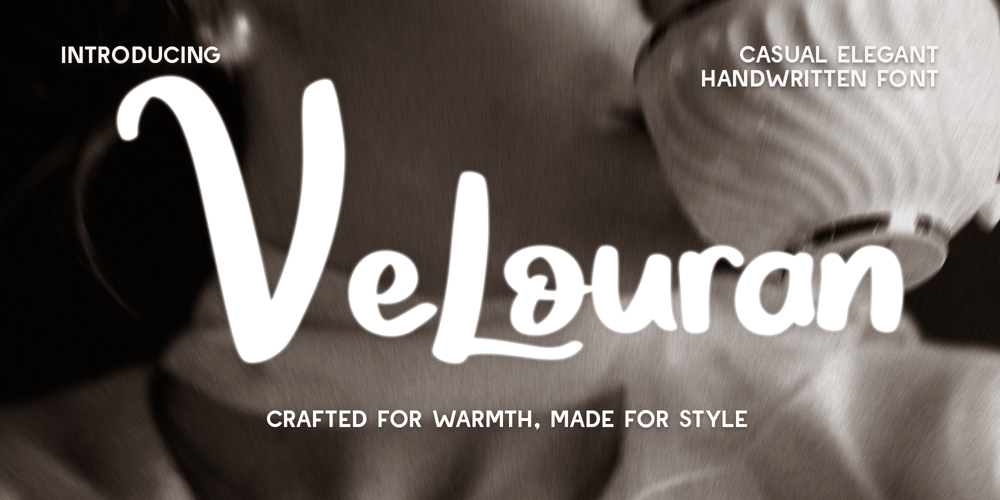
Velouran Font Family was designed by Gilang Mei Nugraha, Frederik Aristaputra and published by Creatifont Studio. Velouran contains 1 styles and family package options. Velouran is a beautifully crafted handwritten font that combines casual elegance with dynamic, graceful strokes. Each letter flows naturally, with smooth curves and delicate lines that bring a warm, inviting feel to the text. The slightly varied, organic shapes give it a personal touch, while its refined structure maintains readability and style. Velouran is perfect for projects that aim to feel both stylish and heartfelt, from branding and social media to wedding invitations and heartfelt quotes. With its effortless blend of beauty and charm, Velouran is designed to make every word feel special and genuine.A SUMMARY OF WHAT’S INCLUDED: Standard Character A-Z, a-z, 0-9, Punctuation & symbols Regular Elegant Style Multilingual Support Works on PC & Mac Simple installation Accessible in Adobe Creative Suite (Ai, Ps, Id, etc.) even work on Microsoft Word. PUA Encoded Characters – Fully accessible without additional design software. 🌟If you come across any issues or notice anything we might have overlooked while using this product, please feel free to reach out to us. We greatly value your feedback as it helps us enhance and refine our products. Thank you!